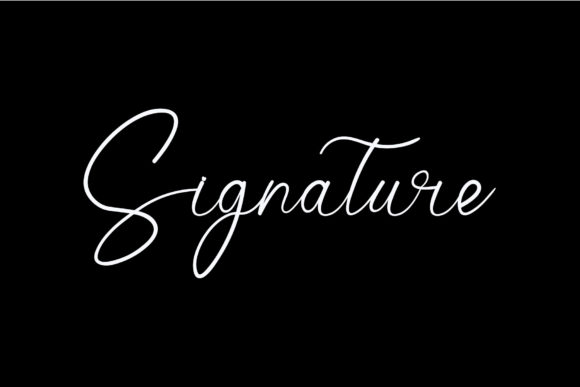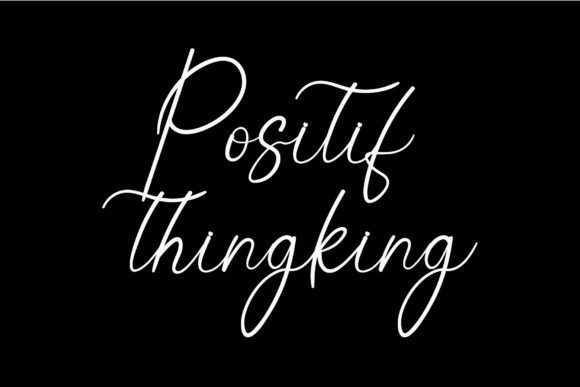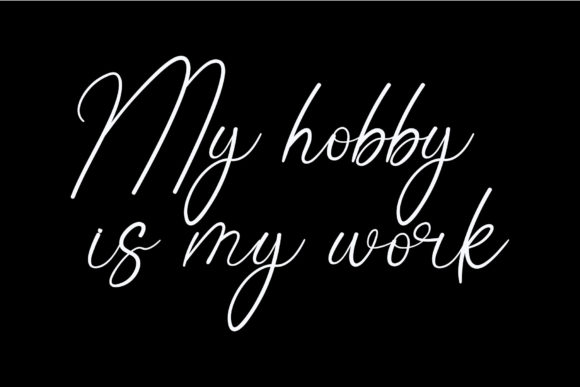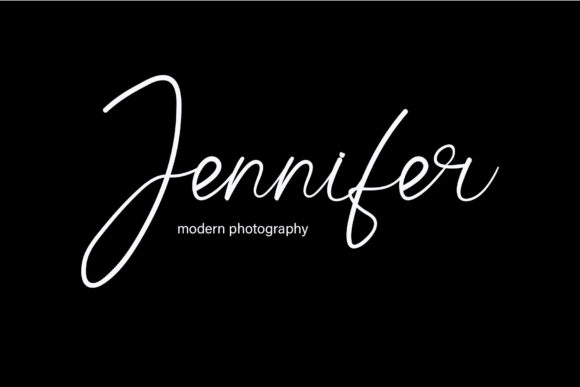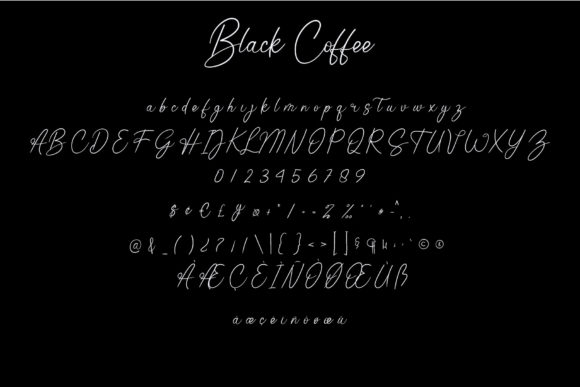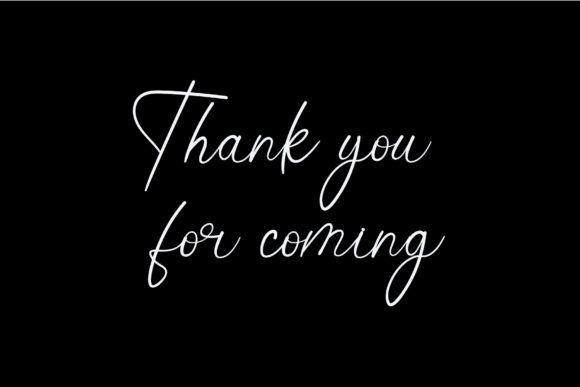
Black Coffee Font
About Black Coffee Font
“Black Coffee” is a romantic and sweet calligraphy script font that brings a sense of elegance to your creative endeavors. With characters that appear to dance along the baseline, this font adds a luxurious spark, making it a perfect choice for various design projects.
The romantic and sweet nature of “Black Coffee” makes it particularly suitable for adding a touch of sophistication to your designs. Picture this font gracing wedding invitations, where its calligraphic script contributes to a romantic and timeless atmosphere, creating a luxurious and memorable impression.
In branding projects, “Black Coffee” becomes a distinctive choice, infusing your visual identity with a touch of romance and elegance. The characters that dance along the baseline add a unique flair, ensuring that your brand stands out with a luxurious spark.
For quotes, social media posts, or any design that aims to convey a romantic or refined message, “Black Coffee” serves as a versatile tool. Its calligraphy script brings a sense of artistry and creativity, enhancing the overall visual appeal.
As you incorporate “Black Coffee” into your creative projects, let its romantic and sweet calligraphy script elevate your designs. Whether you’re working on invitations, branding, or any project that requires a luxurious spark, this font adds a touch of sophistication and beauty, making your creations stand out with grace and style.